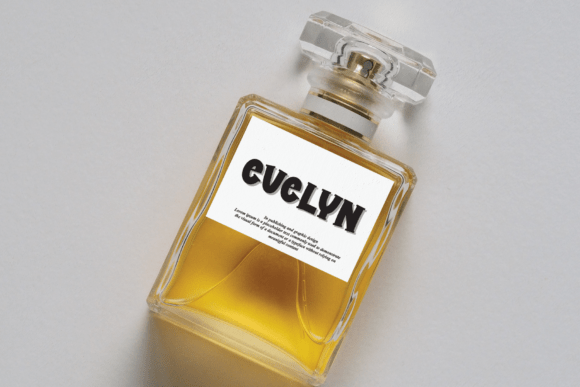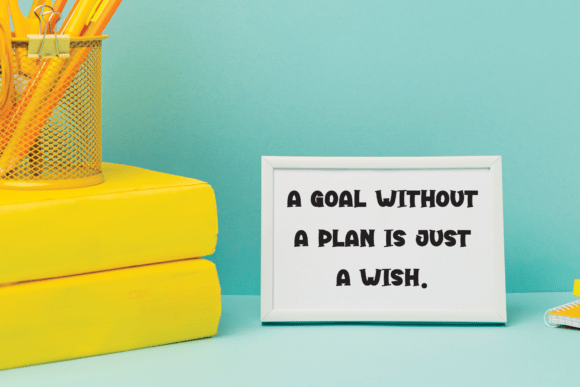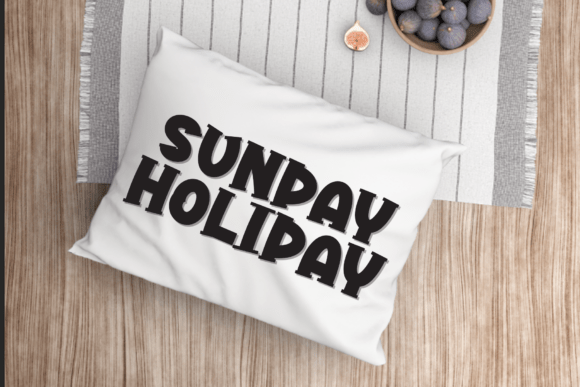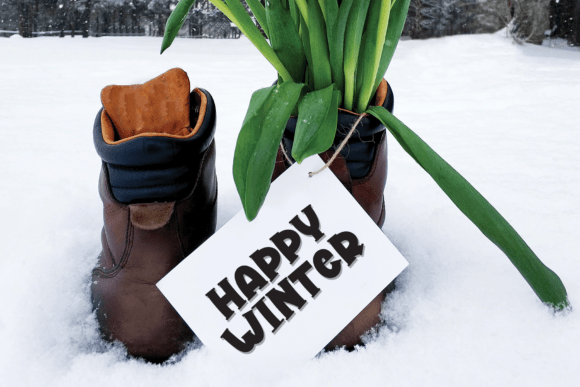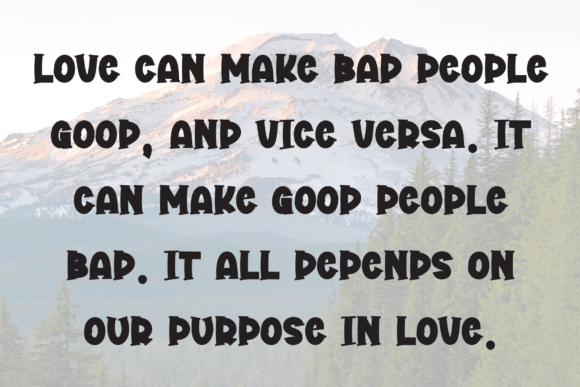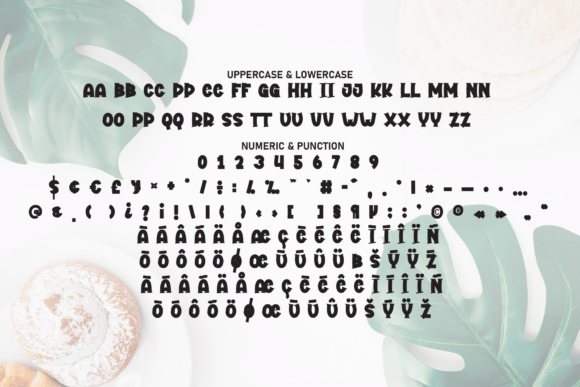
Introducing Good Morning Font: The Charming Handwritten Display Font
Are you looking for a font that can add a touch of elegance and warmth to your designs? Look no further than the Good Morning Font, a charming handwritten display font that is sure to captivate your audience. With its whimsical yet sophisticated feel, this font is perfect for crafting wedding invitations, cards, and any design that seeks a dash of cheerfulness.
The Essence of Elegance
The Good Morning Font embodies the essence of elegance, radiating warmth with each stroke. Its endearing and playful tone brings a sense of sweetness and finesse to your designs, making it perfect for a variety of creative projects. Whether you’re a designer, crafter, or DIY enthusiast, this font is sure to inspire your next project.
A Font with a Personal Touch
One of the standout features of the Good Morning Font is its authentic hand-drawn feel. Each letter and stroke has been carefully crafted to give your designs a unique and personal touch. This font exudes a friendly spirit that is sure to resonate with your audience, making every word feel special and meaningful.
The Good Morning Font is particularly well-suited for wedding invitations and cards. Its elegant and whimsical feel makes it perfect for capturing the magic and romance of a special day. Whether you’re a wedding planner, designer, or DIY bride, this font is sure to add a touch of sophistication and charm to your stationery.
Bringing Your Creative Vision to Life
The Good Morning Font is more than just a font – it’s a tool for bringing your creative vision to life. With its playful and endearing tone, this font is perfect for a variety of design projects, from branding and packaging to social media graphics and more. Whether you’re looking to add a touch of whimsy or elegance to your designs, this font is sure to inspire.
Key Features of the Good Morning Font
- Handwritten display font with a delightful twist
- Whimsical yet sophisticated feel
- Perfect for wedding invitations, cards, and other design projects
- Authentic hand-drawn feel
- Unique and personal touch
- Enduring and playful tone
Why Choose the Good Morning Font?
There are many fonts to choose from, but the Good Morning Font stands out for its unique combination of elegance and whimsy. Here are just a few reasons why you should consider choosing this font for your next project:
- Elegance and sophistication: The Good Morning Font embodies the essence of elegance, making it perfect for designs that require a touch of refinement.
- Whimsy and playfulness: This font also has a playful and whimsical feel, making it perfect for designs that require a dash of cheerfulness.
- Authentic hand-drawn feel: The Good Morning Font has an authentic hand-drawn feel that gives your designs a unique and personal touch.
- Versatility: This font is perfect for a variety of design projects, from wedding invitations and cards to branding and packaging.
The Good Morning Font is a charming handwritten display font that is sure to captivate your audience. With its whimsical yet sophisticated feel, authentic hand-drawn feel, and unique combination of elegance and whimsy, this font is perfect for a variety of creative projects. Whether you’re a designer, crafter, or DIY enthusiast, this font is sure to inspire your next project. So why wait? Download the Good Morning Font today and bring your creative vision to life!